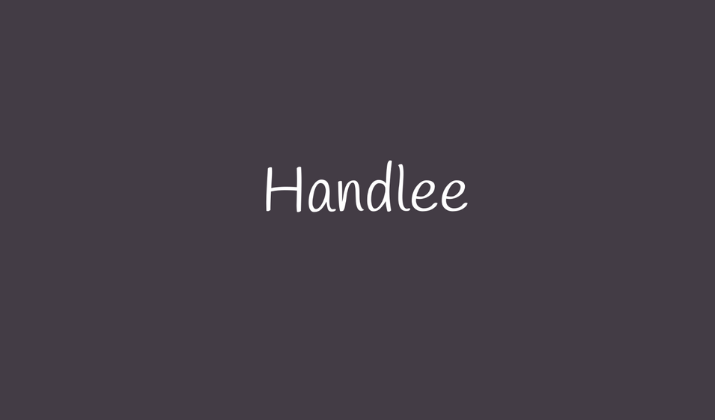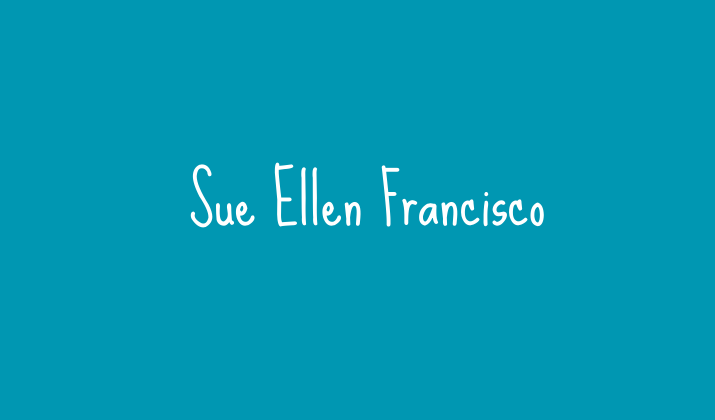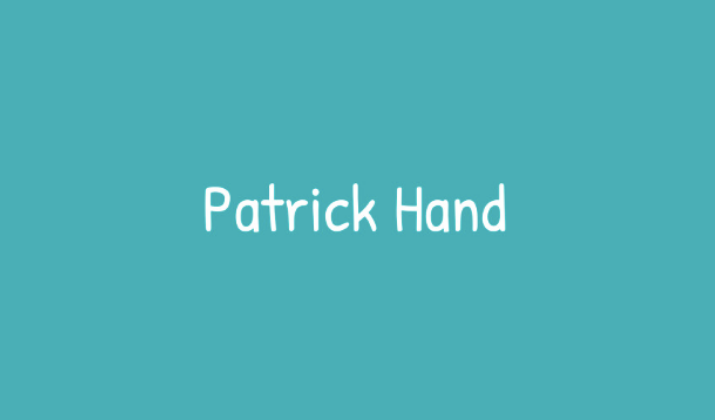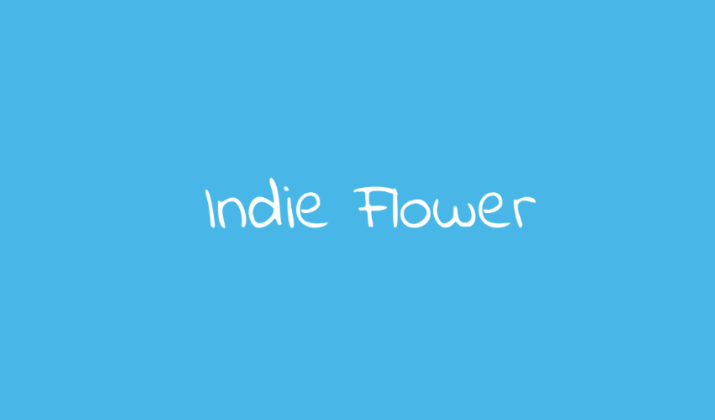
Handwritten fonts can transform your design by adding a personal, human touch.
Unlike geometric or sans-serif fonts, handwriting-style fonts evoke authenticity, friendliness, and creativity.
Regardless of whether you’re creating greeting cards, digital notes, social posts, or even a fun resume, the right handwritten font can make your message more relatable and visually distinct.
Google Fonts offers a range of free, beautiful options that simulate handwriting in various styles, from casual scribbles to elegant cursive.
Here are some of the best Google fonts that look like handwriting.
Best Google Fonts That Look Like Handwriting
1. Dancing Script
Dancing Script is inspired by popular scripts from the 1950s, featuring round letterforms and a rhythmic flow.
The characters connect naturally, giving the appearance of real cursive writing with a slight bounce in the baseline.
Its bold personality makes it ideal for large text such as headers, titles, or greeting cards.
It’s friendly yet elegant, working well in lifestyle blogs, food labels, and vintage-themed projects. Pair it with a clean sans-serif for contrast and readability.
2. Crafty Girls
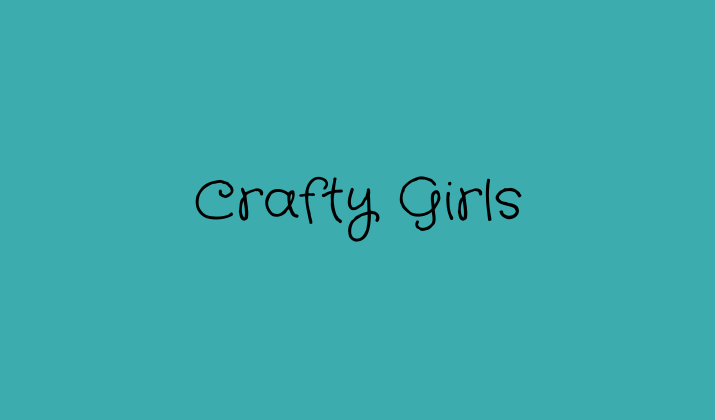
Crafty Girls is a playful, handwritten font that feels fun and whimsical.
Its round, bubbly letters make it suitable for children’s projects, crafts, or lighthearted branding. The font has a sense of energy and creativity that makes it feel joyful.
It’s easy to read, even though it has a playful style. Crafty Girls works best in casual and informal designs where personality is key.
This font instantly brings cheer and friendliness to your projects.
3. Shadows Into Light
Shadows Into Light has a clean, monoline appearance with slightly slanted characters that resemble a casual note or journal entry.
Its neat and simple strokes make it highly legible even at smaller sizes.
This font is perfect for projects that aim to feel intimate or personal, like planners, digital journals, children’s books, and heartfelt social media quotes.
It walks the line between casual and tidy, giving it great flexibility.
4. Gloria Hallelujah
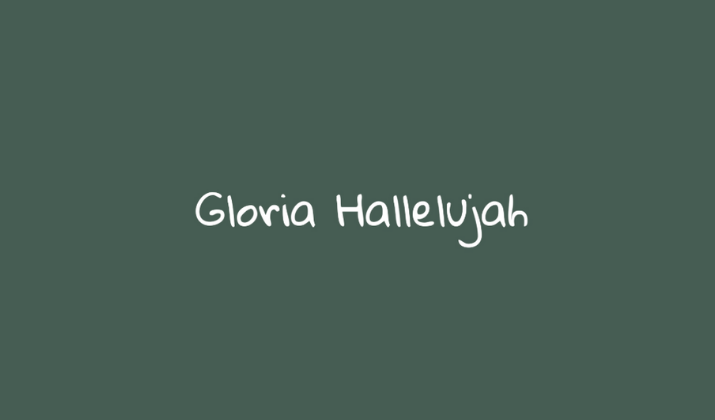
Gloria Hallelujah captures the spontaneity of handwritten text, complete with uneven character sizes and imperfect alignment.
It feels like something written with a felt-tip pen—fun, quirky, and full of personality.
This makes it perfect for informal uses like comic strips, blog side notes, humorous social media captions, or branding targeted at a youthful or playful audience.
It’s not designed for long paragraphs but works wonderfully in short, punchy bursts of text.
5. Rock Salt
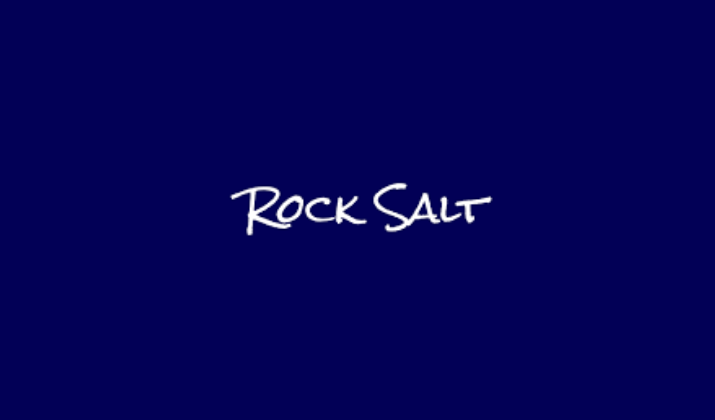
Rock Salt is a rough, grungy handwriting font that looks like it was written with a marker.
Its uneven strokes give it a raw, edgy personality. This makes it great for projects that want to appear bold and unconventional.
Rock Salt works well in music posters, street-style graphics, or youth-oriented designs.
While it’s not suitable for long texts, it creates a powerful impact in short headings. The font brings a sense of energy and rebellion to any project.
6. Just Another Hand
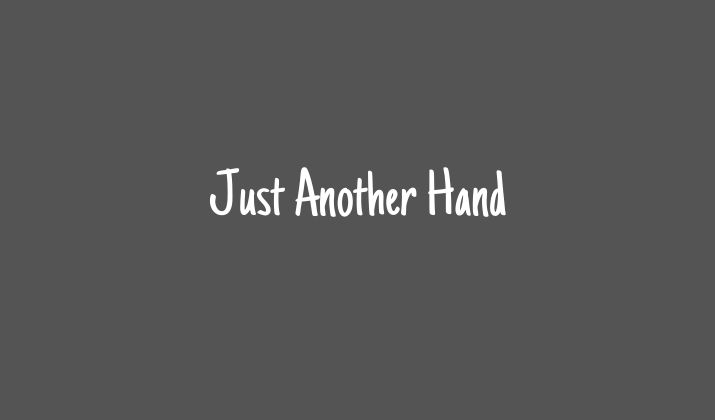
Just Another Hand is a tall, narrow handwritten font with a casual feel. Its strokes resemble quick handwriting, which gives it an authentic vibe.
Because of its condensed style, it’s useful for fitting text into smaller spaces without losing readability.
It works best in titles, captions, or designs that need a touch of personality.
The font has a friendly and approachable quality that makes it stand out. Just Another Hand is great for casual projects that need authenticity.
7. Great Vibes
Great Vibes is a highly decorative cursive font with elegant flourishes. It mimics formal handwriting and adds sophistication to any design.
This makes it perfect for wedding invitations, luxury branding, or event posters. Despite its ornate style, the font remains legible when used in larger text sizes.
It has a romantic and graceful feel, which makes it great for creative projects with a formal touch.
Great Vibes is perfect when you want handwriting with elegance and impact.
8. Homemade Apple
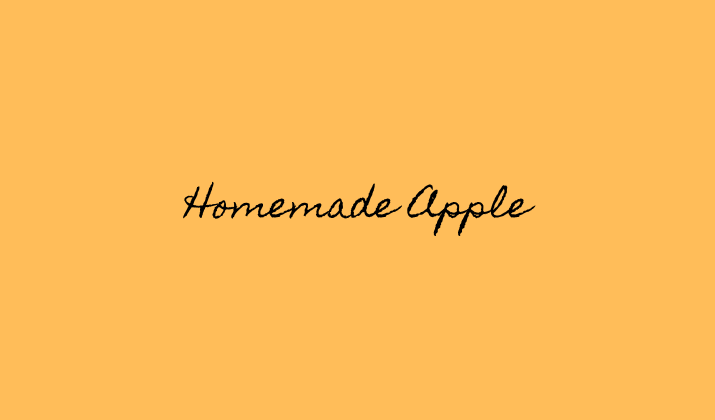
Homemade Apple has a cozy and personal handwritten look, like a note written in a recipe book.
Its irregular curves and strokes make it feel authentic and inviting. The font works wonderfully for food blogs, DIY projects, or crafts-related designs.
It brings warmth and nostalgia, making projects feel homey and personal. While it’s not ideal for long text passages, it works great for headers and short notes.
Homemade Apple adds a touch of personality and comfort to any design.
9. Kristi
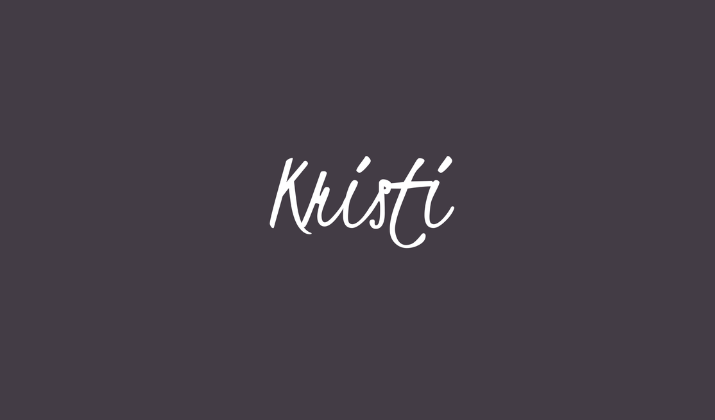
Conclusion
The fonts listed above show how varied and expressive handwriting-style typefaces can be, even within a free resource like Google Fonts.
Whether you’re looking for something quirky, neat, casual, or elegant, there’s a handwritten font to match your project’s tone.
Use them to infuse your designs with personality, warmth, and character.
Just remember to keep readability in mind, especially for longer text. Pair handwriting fonts with clean body fonts to maintain balance and hierarchy in your design.